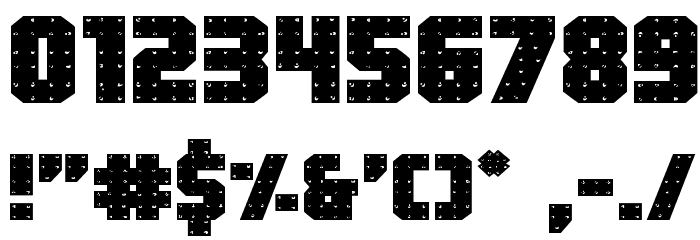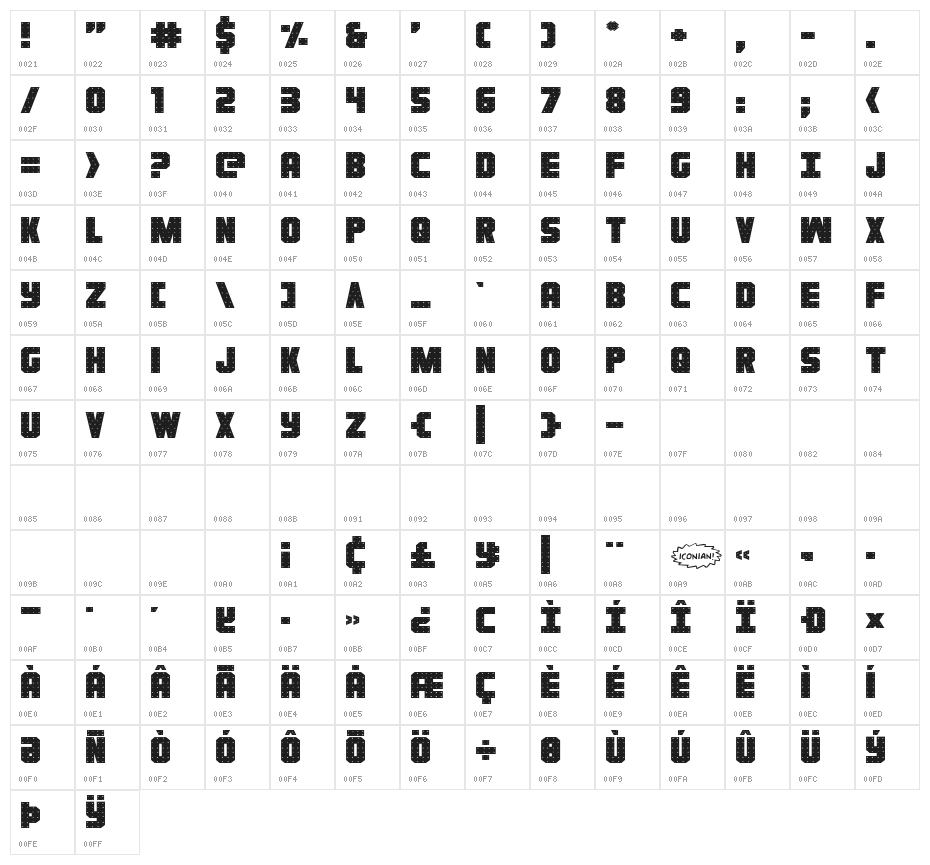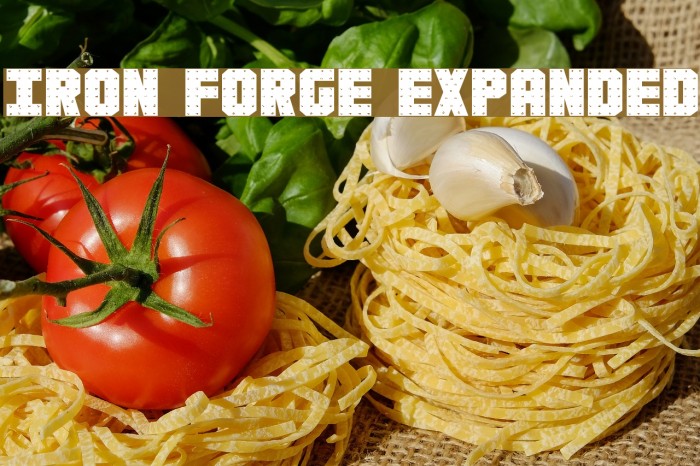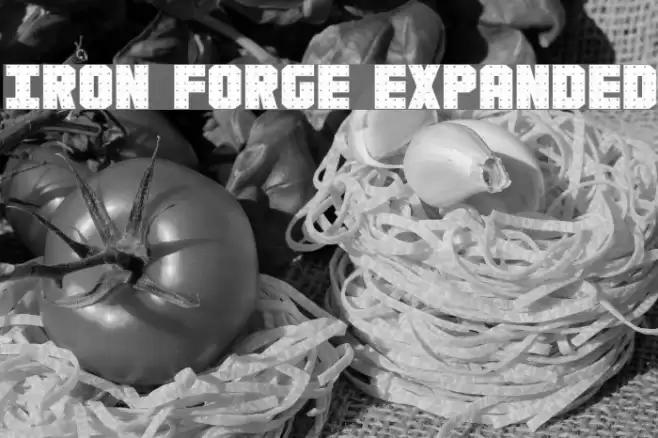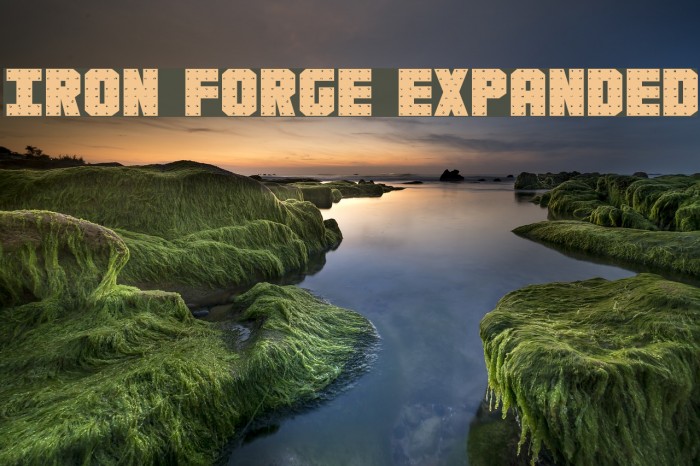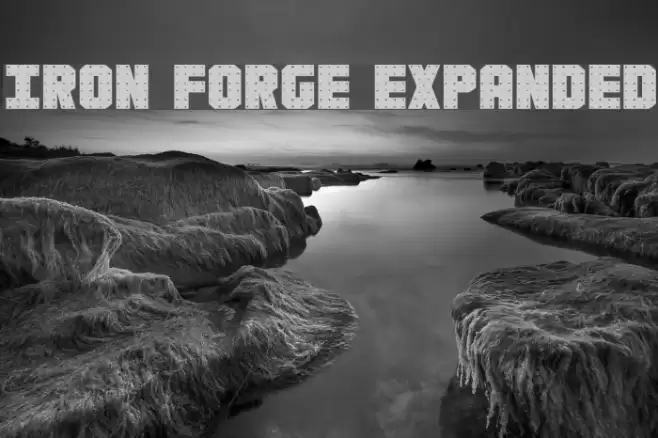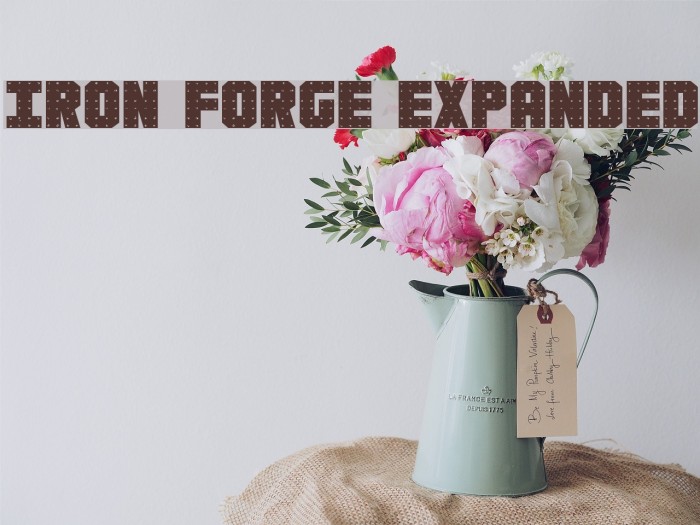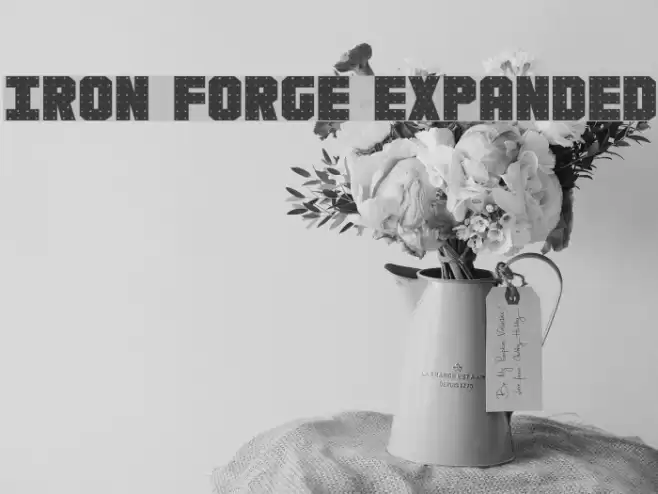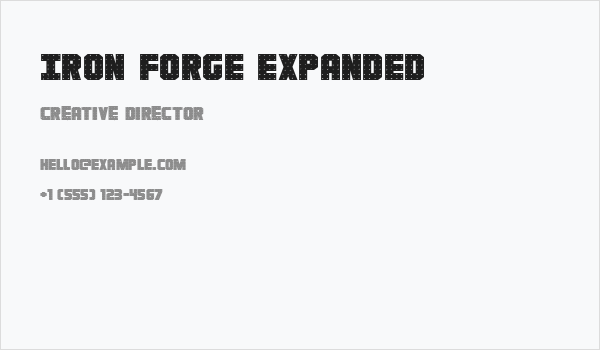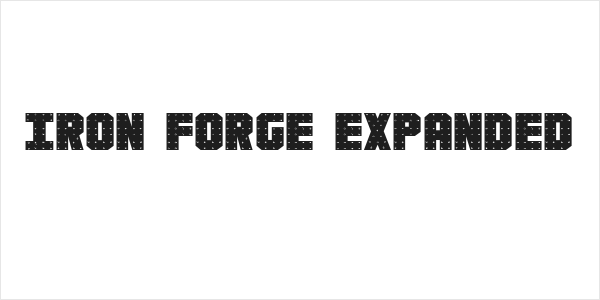
Iron Forge Expanded Font
Iron Forge Expanded Description
This font features a bold, industrial design with a distinct, rugged texture reminiscent of metal or machinery. The characters are blocky and robust, with a uniform thickness that conveys strength and durability. Each letter is adorned with a pattern of small, evenly spaced dots, adding a unique decorative element that enhances its mechanical aesthetic. The font's expanded width gives it a commanding presence, making it ideal for attention-grabbing headlines or titles. Its geometric shapes and sharp angles contribute to a modern and edgy look, suitable for projects that require a bold and impactful visual statement.
| Overall Style | Modern, Industrial |
| Proposed Projects | Ideal for industrial-themed posters, branding for machinery or automotive companies, video game titles, or any project needing a strong, mechanical aesthetic. |